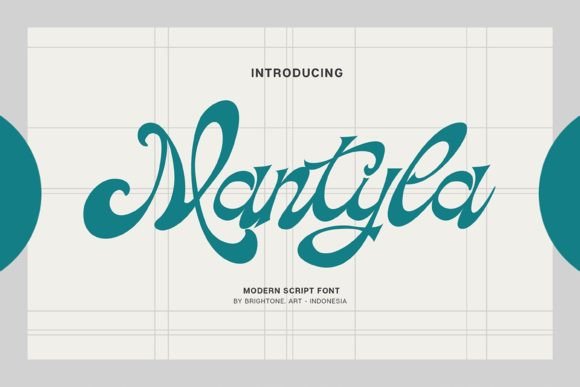
Journey into the world of Mantyla Font, a playful handwritten creation by brightonexart, where whimsy and charm intertwine. Inspired by the free-spirited era of the hippies, Mantyla embodies the essence of individuality and self-expression.
With its unique script style, Mantyla adds a touch of whimsy to any design. Its fluid strokes and charming imperfections evoke a sense of nostalgia, reminiscent of love letters penned in the days of yore. Each character dances across the page, creating a visual symphony that captivates and enchants.
Unleash your creativity and let Mantyla transform your logos, lettering, labels, packaging, stickers, and branding into captivating works of art. Watch as your designs blossom with personality and flair, leaving an unforgettable impression on all who encounter them.
Mantyla is not just a font; it's an experience. It's a journey into a world where imagination reigns supreme and self-expression knows no bounds. Embrace the magic of Mantyla Font and embark on a creative adventure unlike any other.